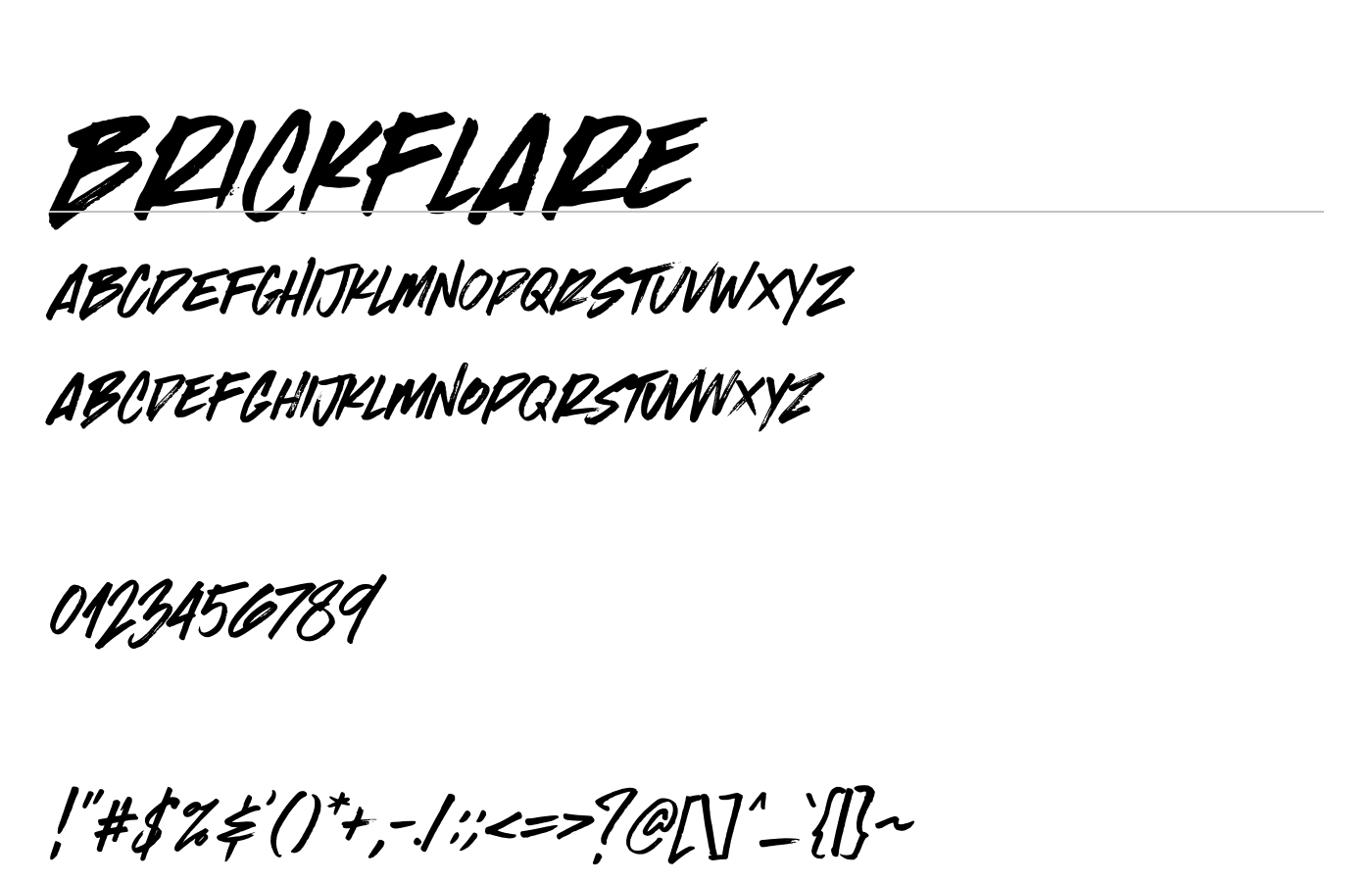
Brickflare is a bold, handwritten brush script font with a dynamic, energetic feel, characterized by its textured, brushstroke appearance and slightly condensed letterforms. It works well for brands and designs seeking a casual yet impactful style, perfect for logos, posters, and packaging where a lively, artistic touch is desired. Its expressive, rough edges and fluid motion make it ideal for creative and modern visuals that need a strong personality.
Brickflare Font
About Brickflare Font